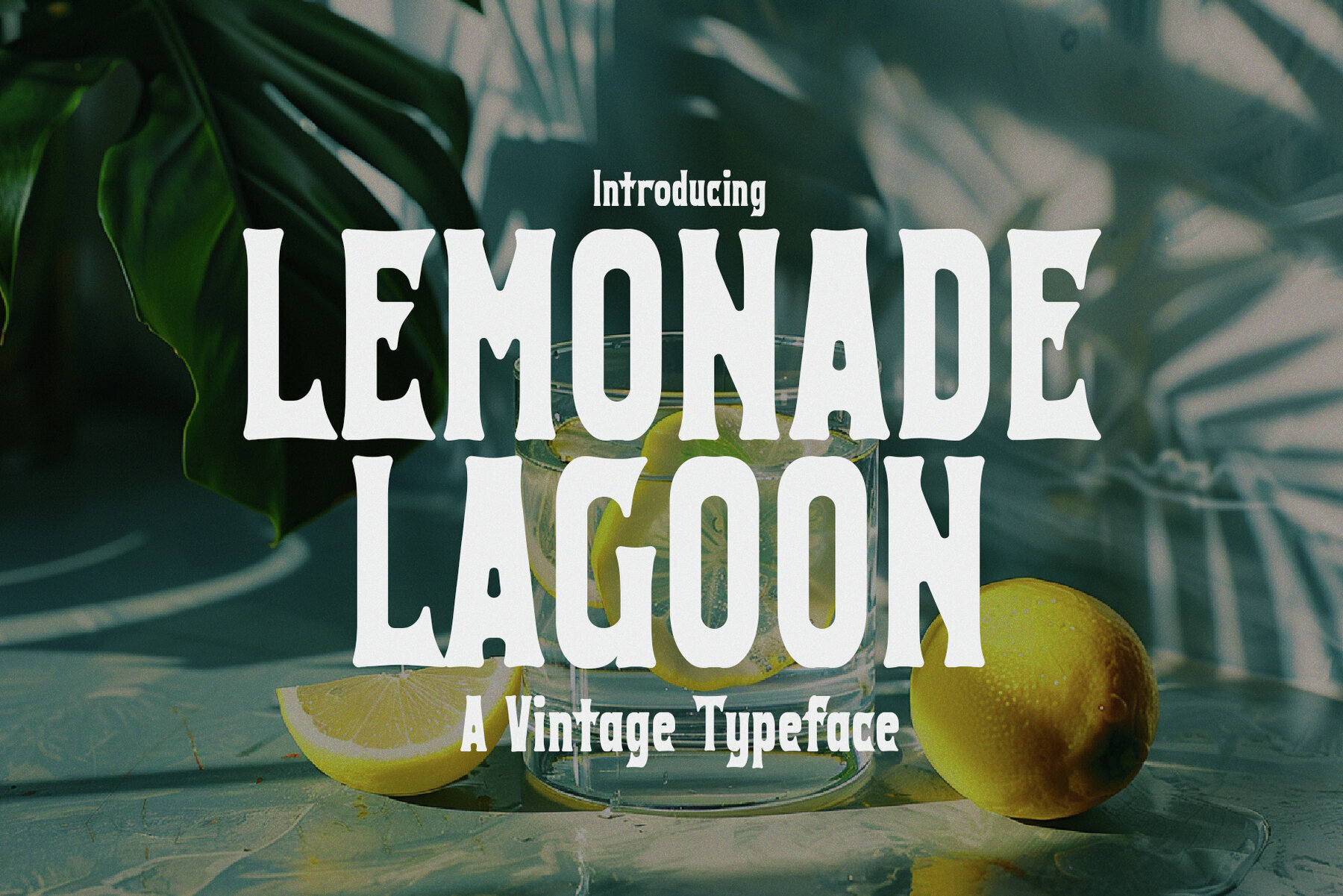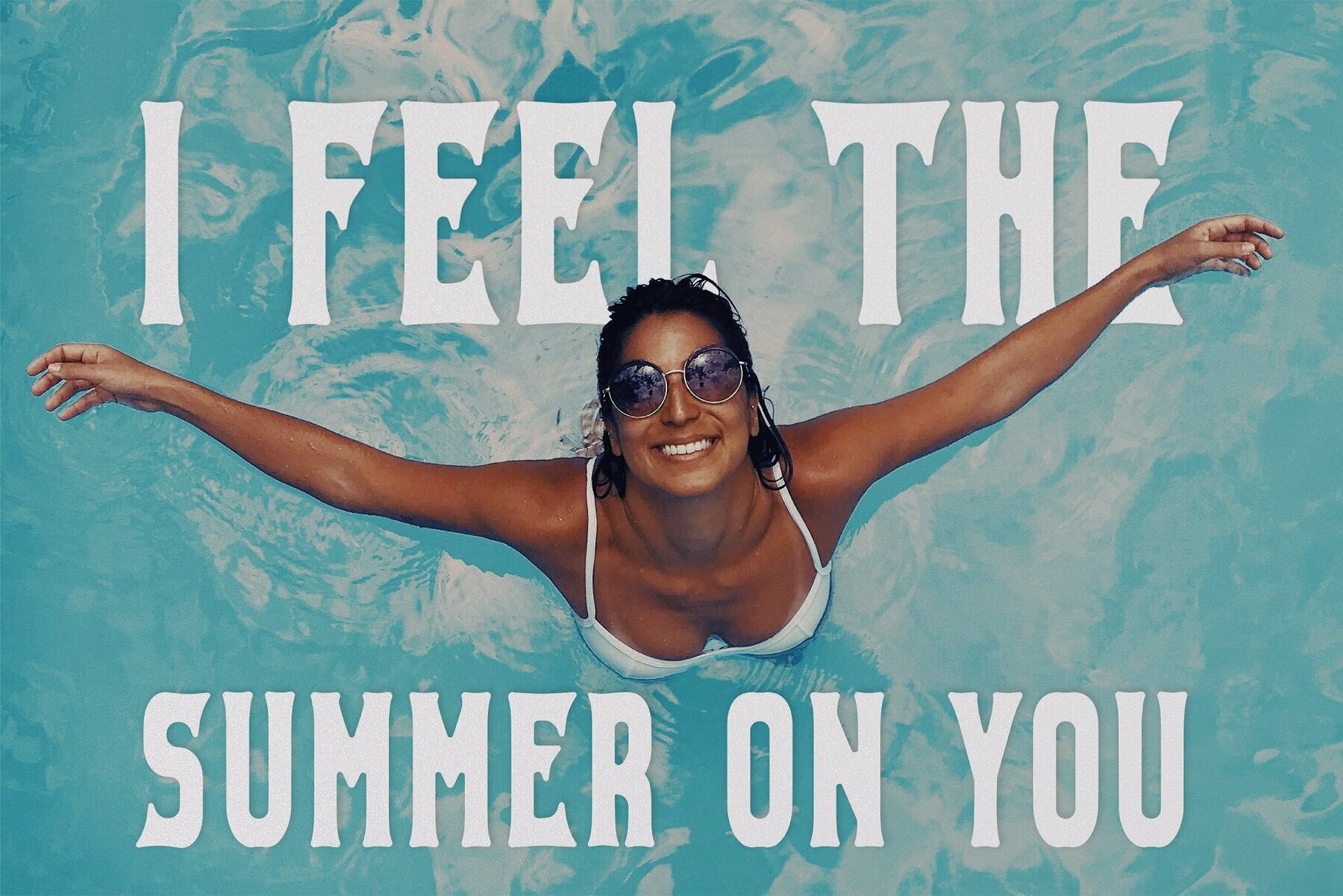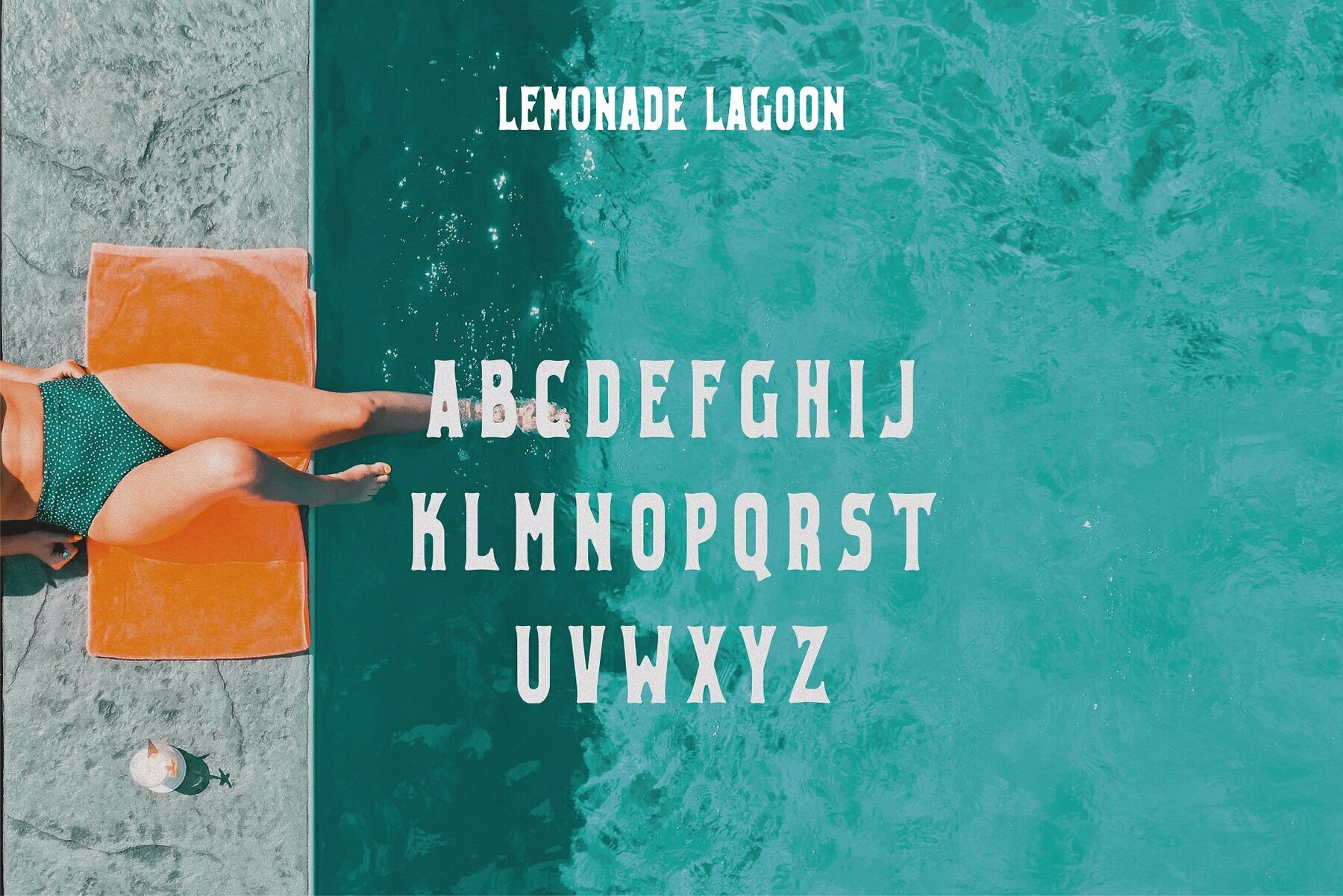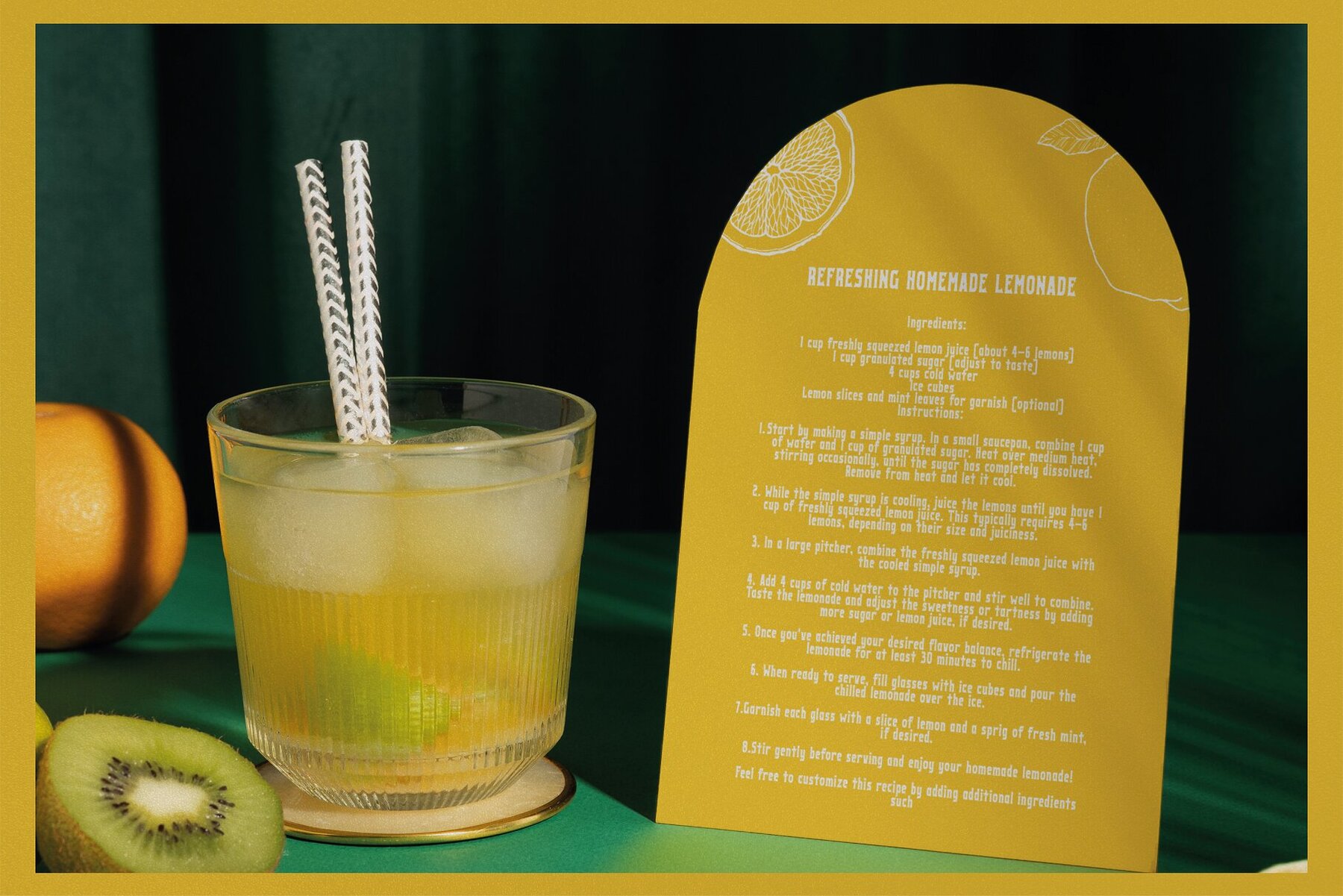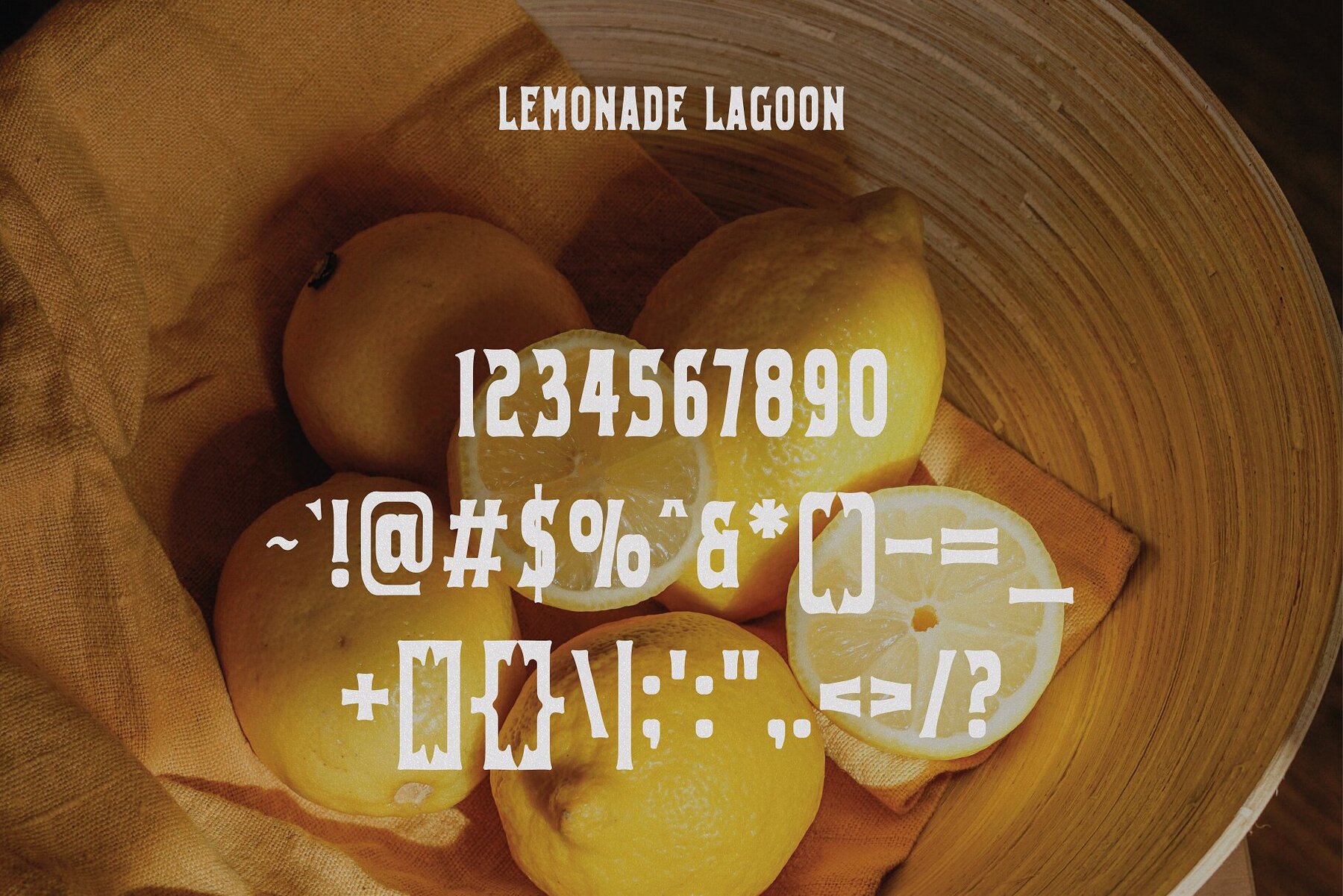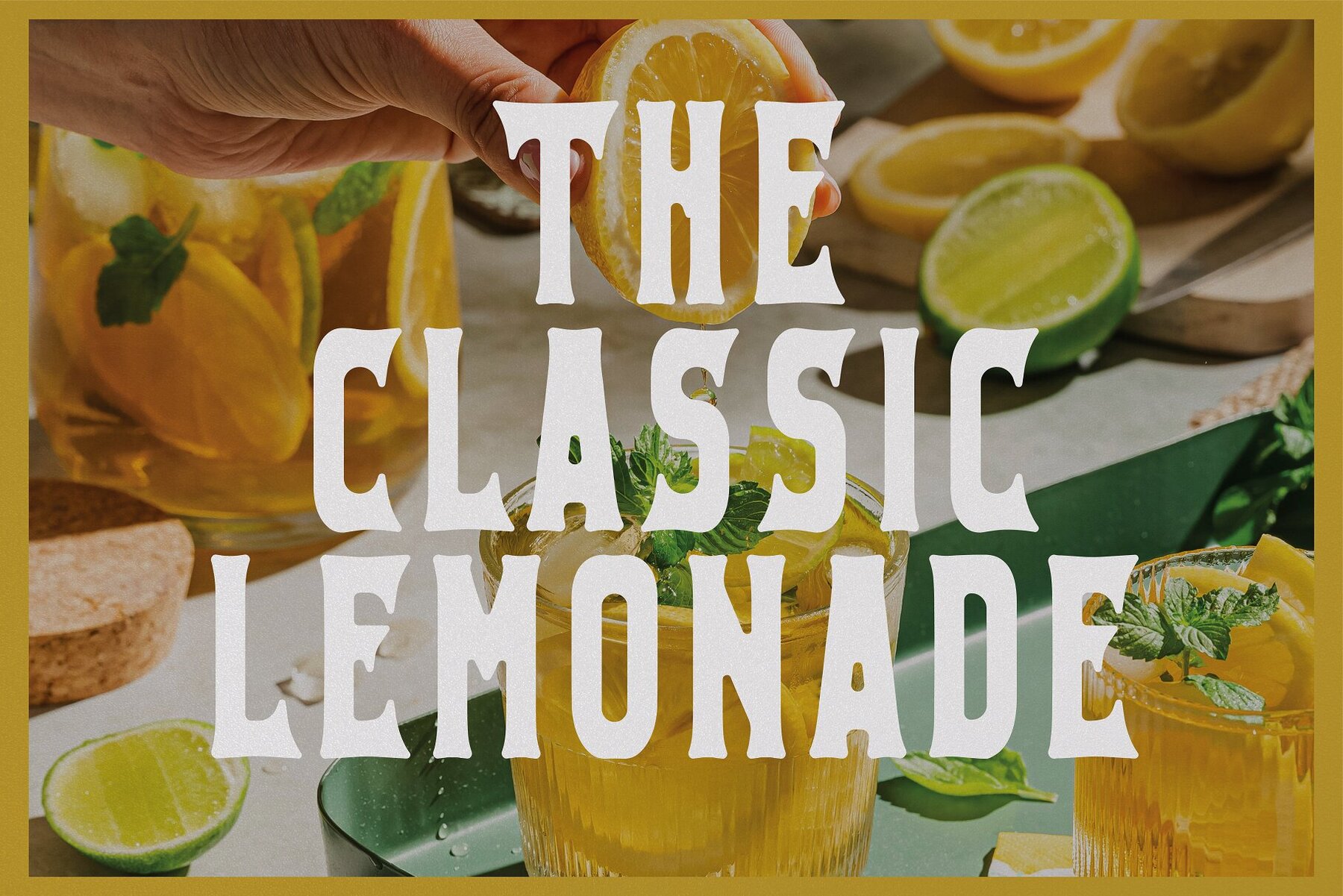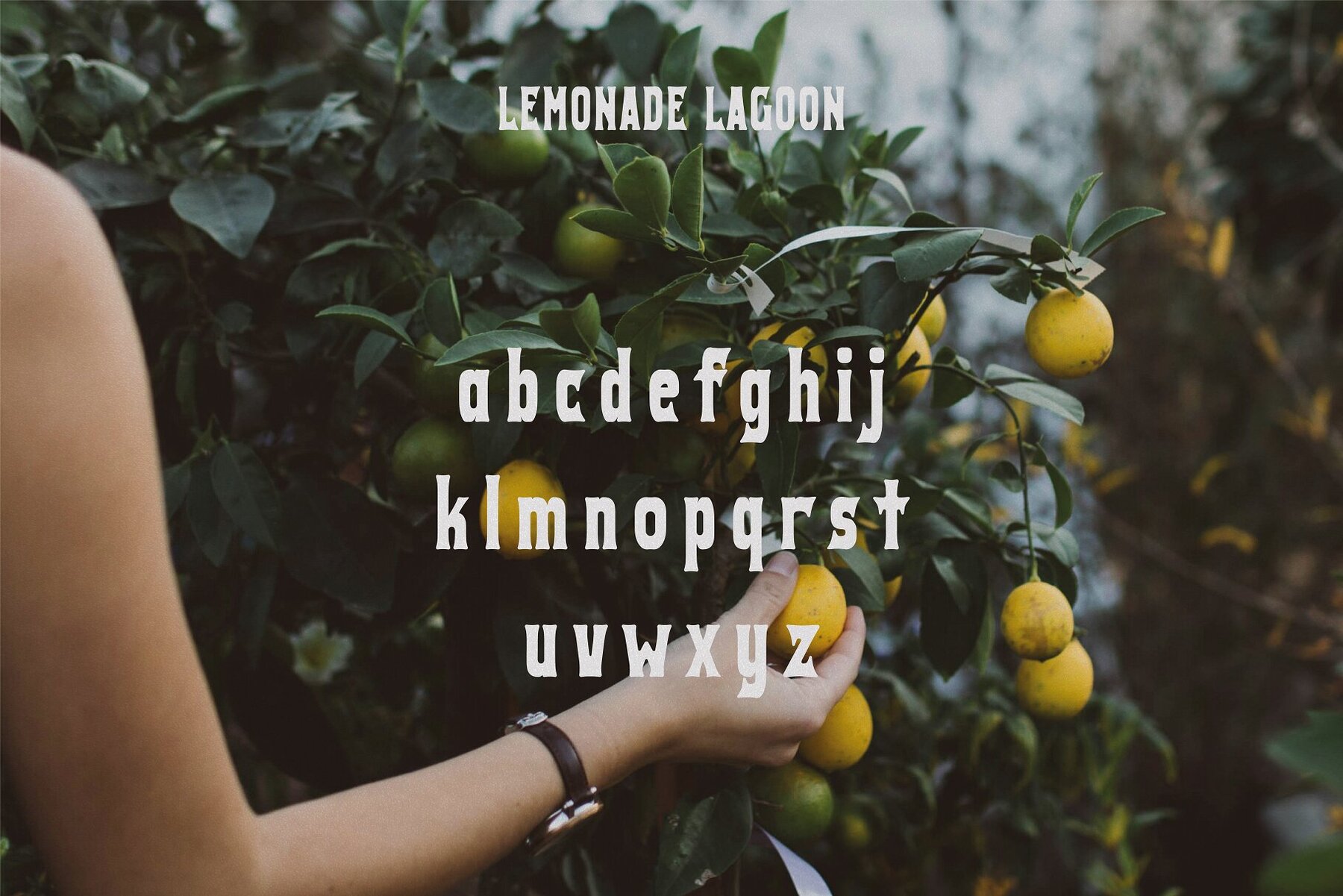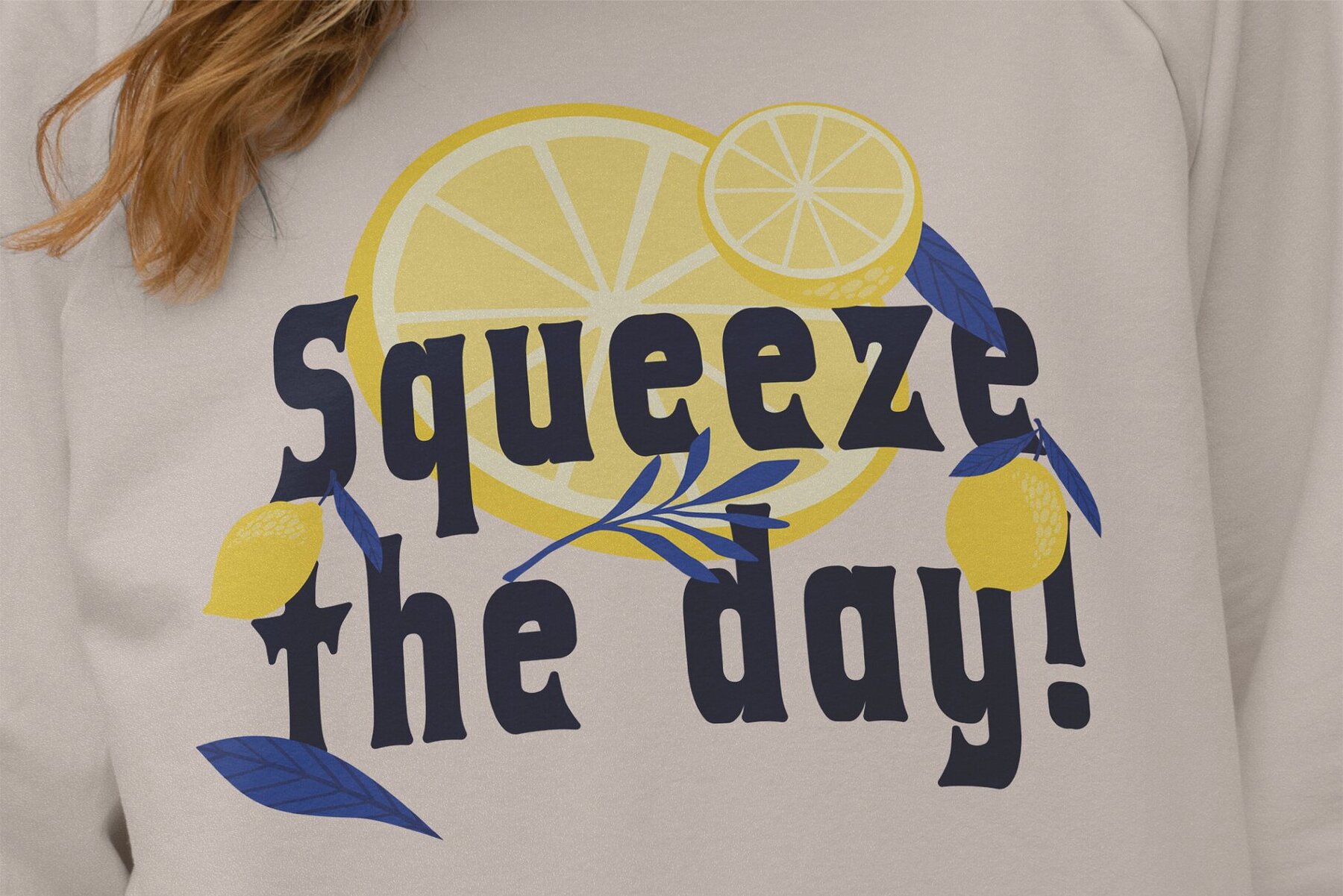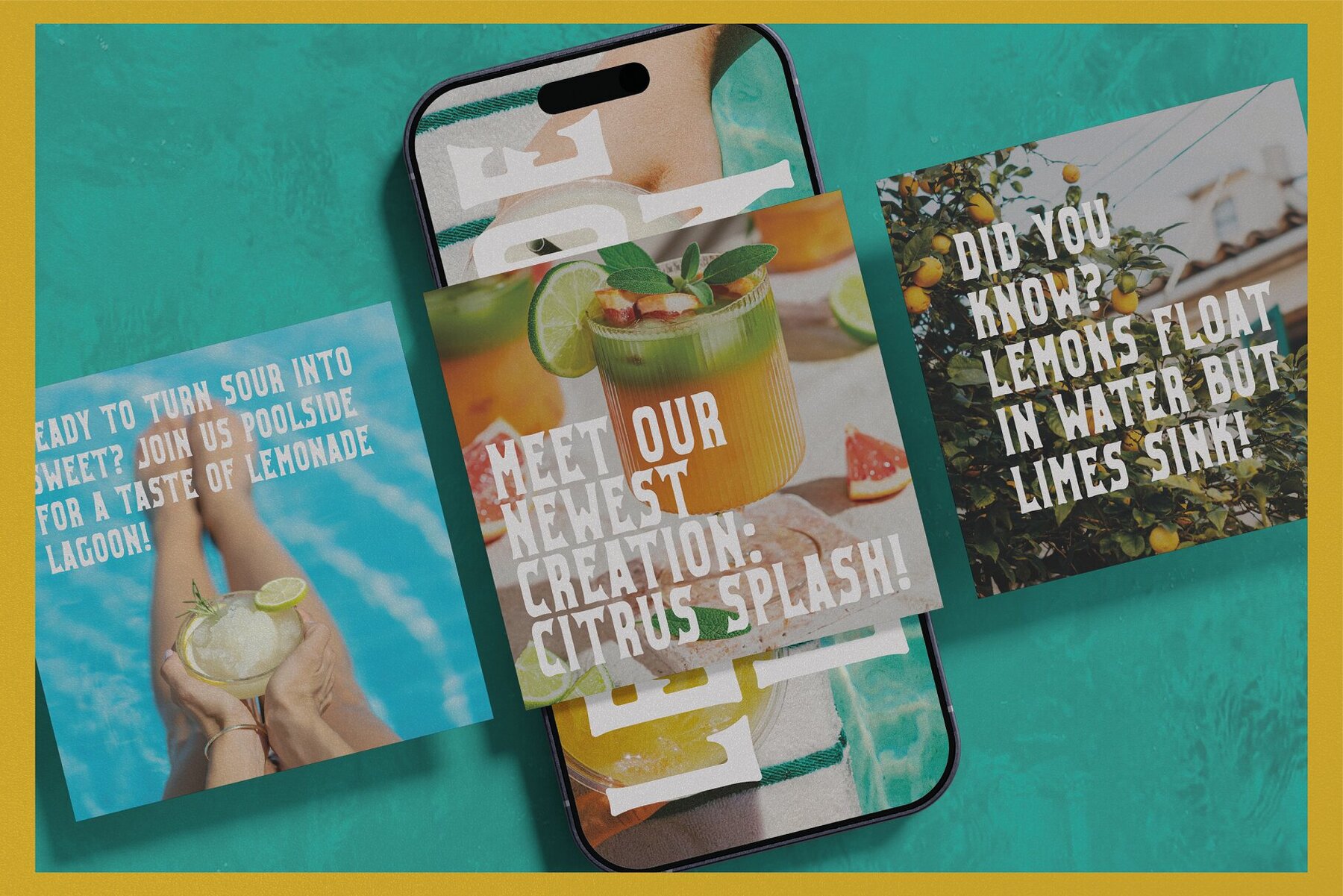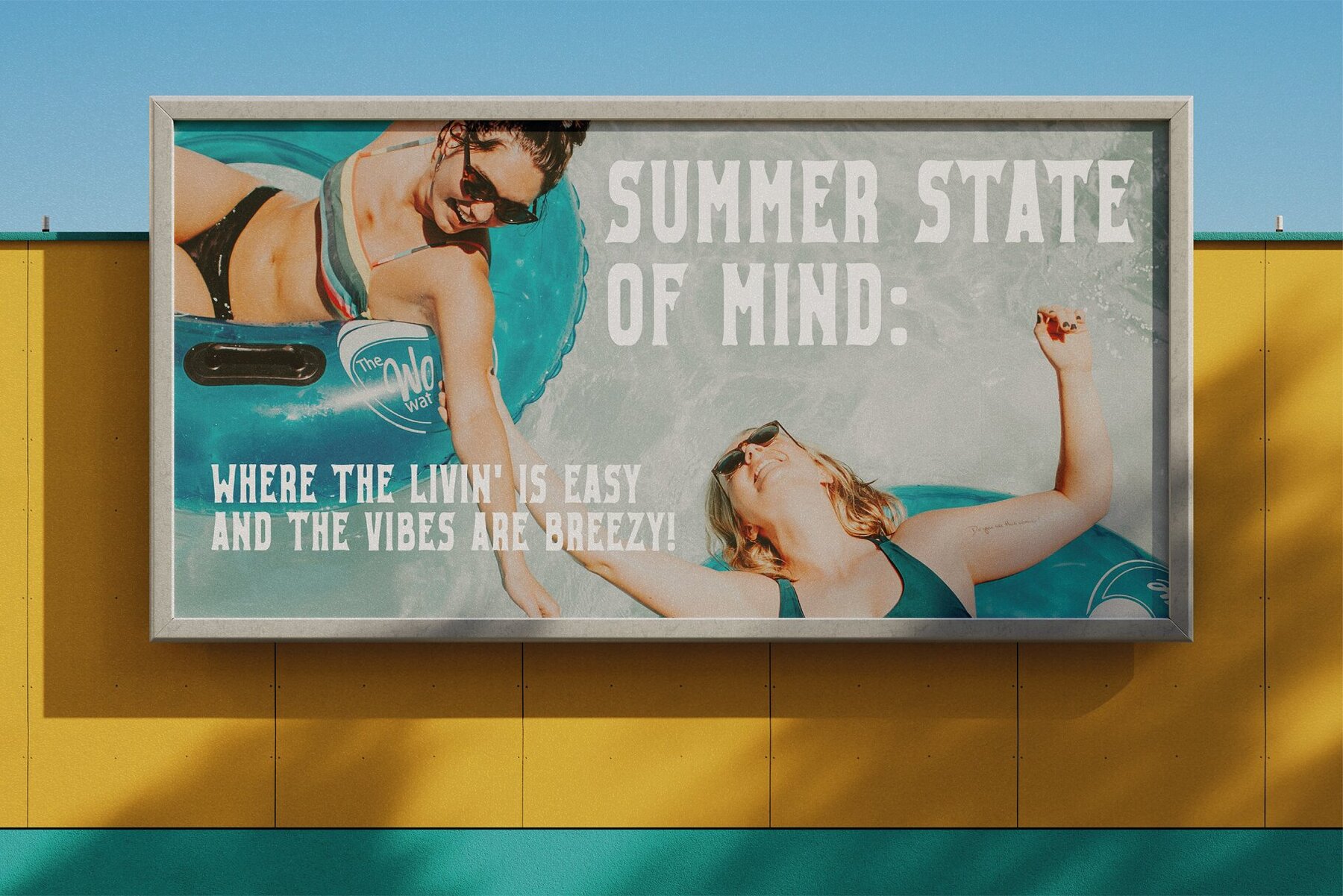
Lemonade Lagoon
Sip on the nostalgia of sunny days with Lemonade Lagoon, a vintage typeface that captures the timeless charm of old-fashioned signage and classic print design. Featuring sturdy characters and clean lines, this font blends a retro vibe with modern clarity. Lemonade Lagoon's bold and friendly letters are ideal for creating standout headers, logos, and posters that need to command attention while warming the heart. Each letterform is meticulously crafted to capture the essence of an era when design was about both personality and message.
More than just a typeface, Lemonade Lagoon tells a story of summer fairs, homemade lemonade stands, and the laid-back feel of the good old days. Perfect for branding projects requiring a touch of whimsy, packaging with an authentic retro feel, or any design calling for vintage warmth, Lemonade Lagoon adds a narrative of simplicity, joy, and nostalgia. Infuse your creative projects with the sweet, citrusy zest of Lemonade Lagoon, and bring a slice of the past into your designs with every word.